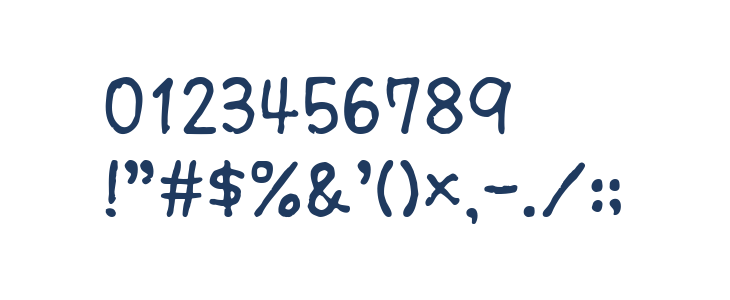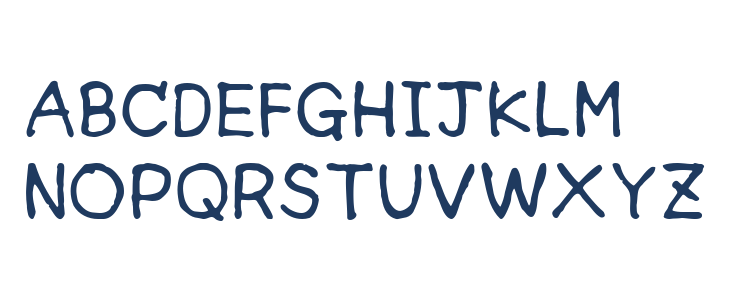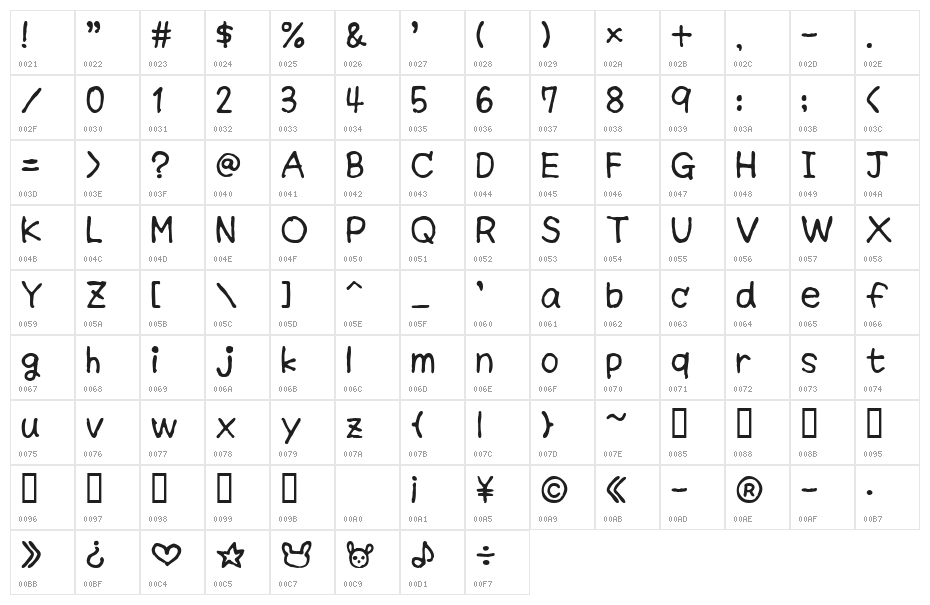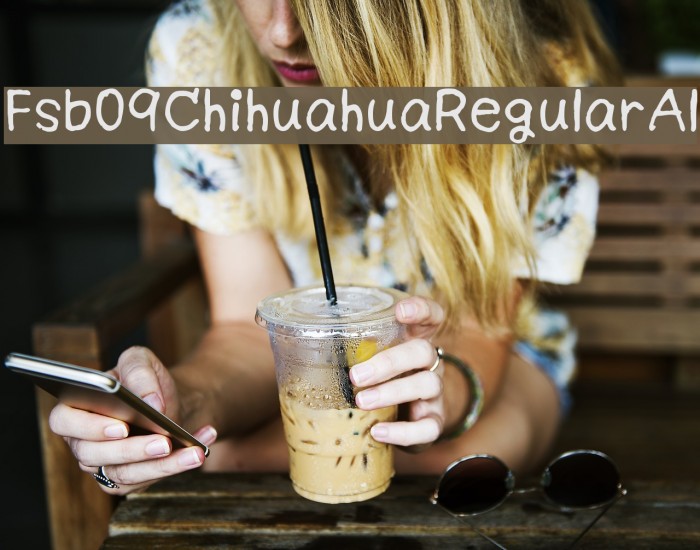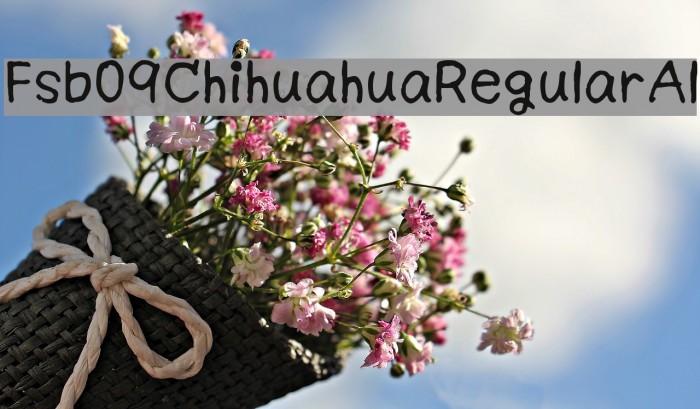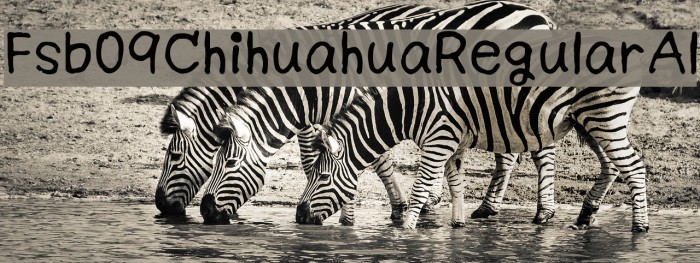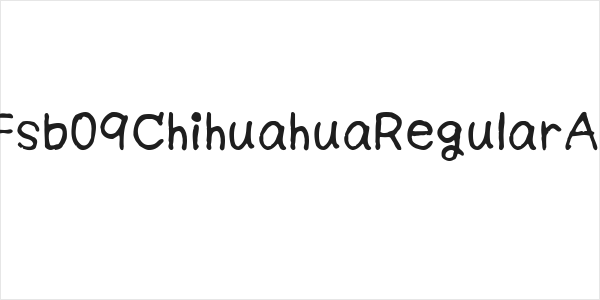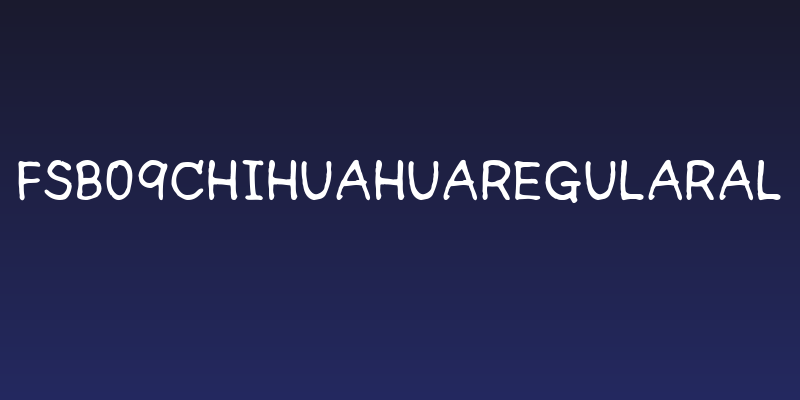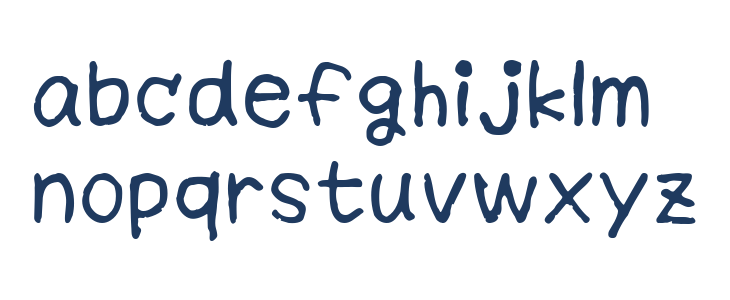
Fsb09ChihuahuaRegularAl Font
Fsb09ChihuahuaRegularAl Description
This playful and quirky font features a handwritten style with a casual and friendly appearance. The characters are slightly irregular, giving it a personal and informal touch. The strokes are rounded and smooth, contributing to its approachable and warm feel. The font maintains a consistent weight throughout, with moderate spacing between characters that ensures readability while preserving its unique charm. Its distinctive style makes it suitable for projects that require a fun and engaging look.
| Use Case | Logos, Headlines, Informal Text |
| Proposed Projects | Ideal for children's books, greeting cards, playful branding, and informal invitations. |